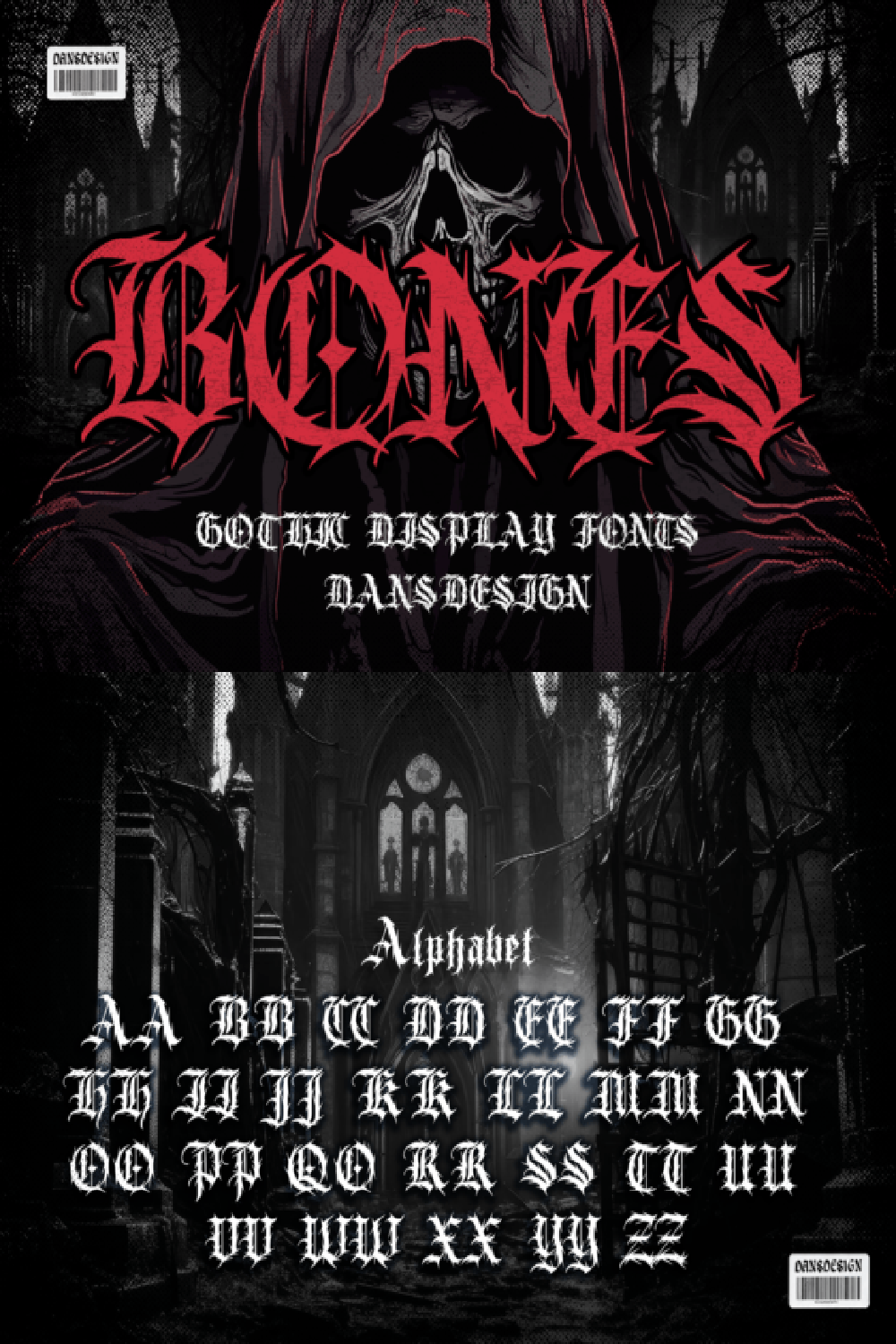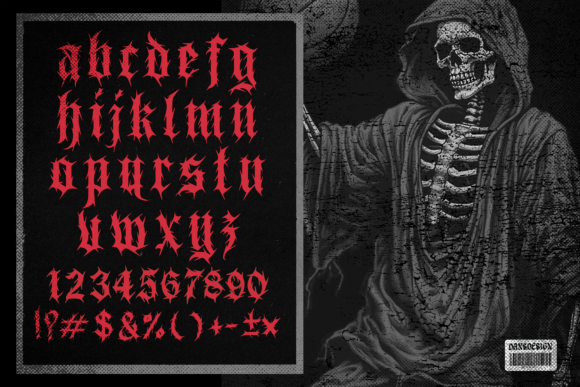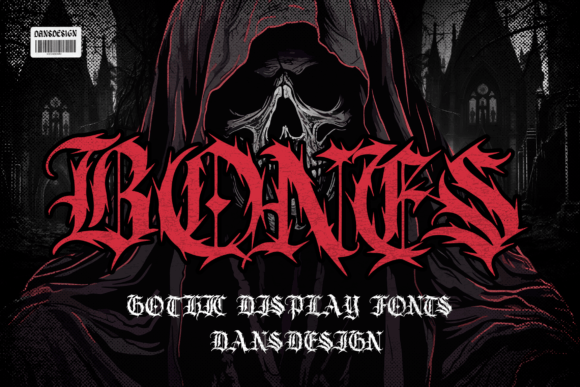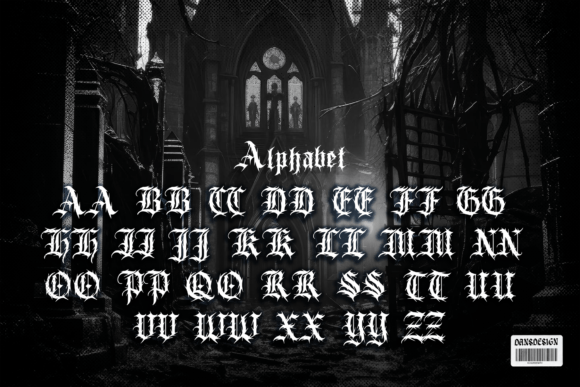
Bones Font: Chic Blackletter for Retro Logos & Tattoo Branding
About the Bones Font
Make a bold statement with Bones Font, a powerful and memorable font. Bones is a distinct, highly detailed, and chic Blackletter font. It would make a great choice for exquisite retro-urban designs, tattoo business branding, logos, vintage designs, movie, poster, apparel, illustration, and more.
Bones excels in headline applications, short impactful phrases, and logo design where its intricate details shine. It’s ideal for projects needing a bold, vintage aesthetic, such as branding for a motorcycle shop, a whiskey label, or a gothic-themed event poster. Avoid using Bones for body text or long paragraphs; its high detail level reduces readability at smaller sizes.
Pairing Bones with a clean sans-serif like Helvetica Neue for supporting text creates a strong contrast, balancing the ornate Blackletter with modern simplicity. Alternatively, a classic serif font like Garamond adds a touch of traditional elegance, complementing Bones’ vintage feel without overwhelming the design.
The font projects a strong, sophisticated personality, leaning towards rebellious yet refined. Its detailed forms convey a sense of history and craftsmanship, making it unsuitable for projects requiring a minimalist or friendly aesthetic.